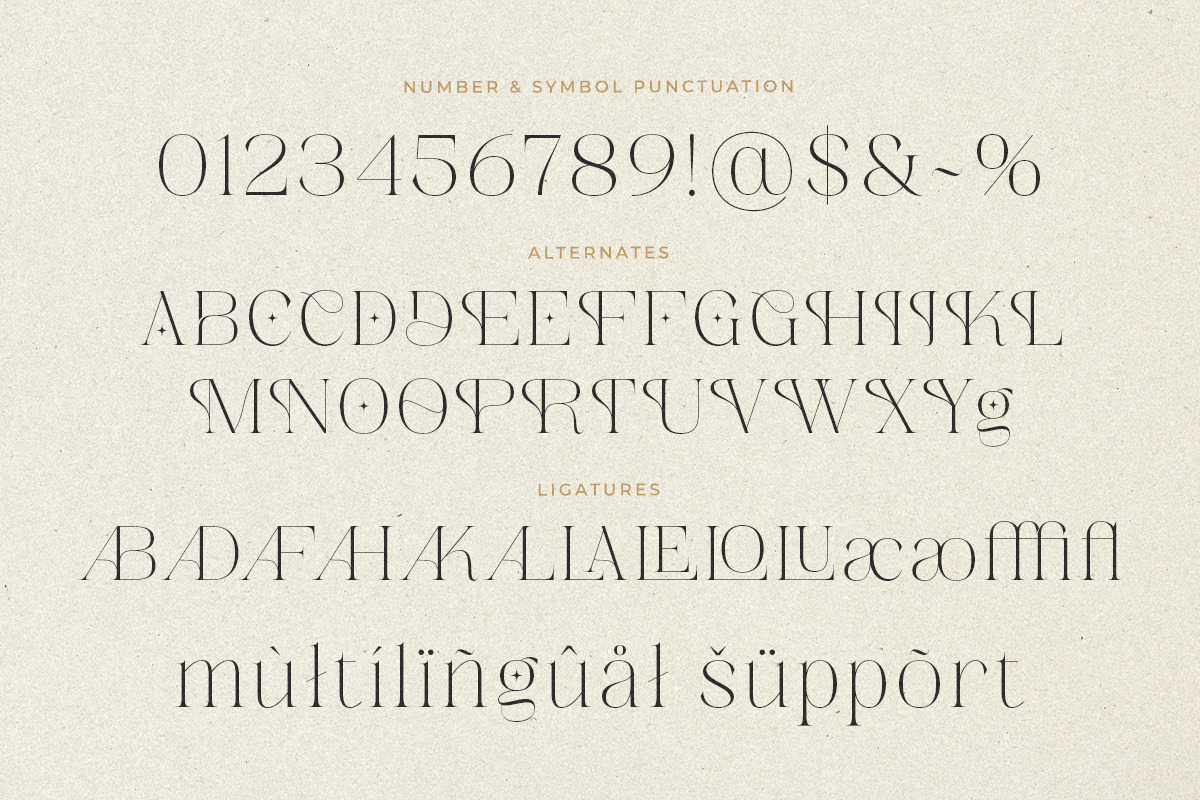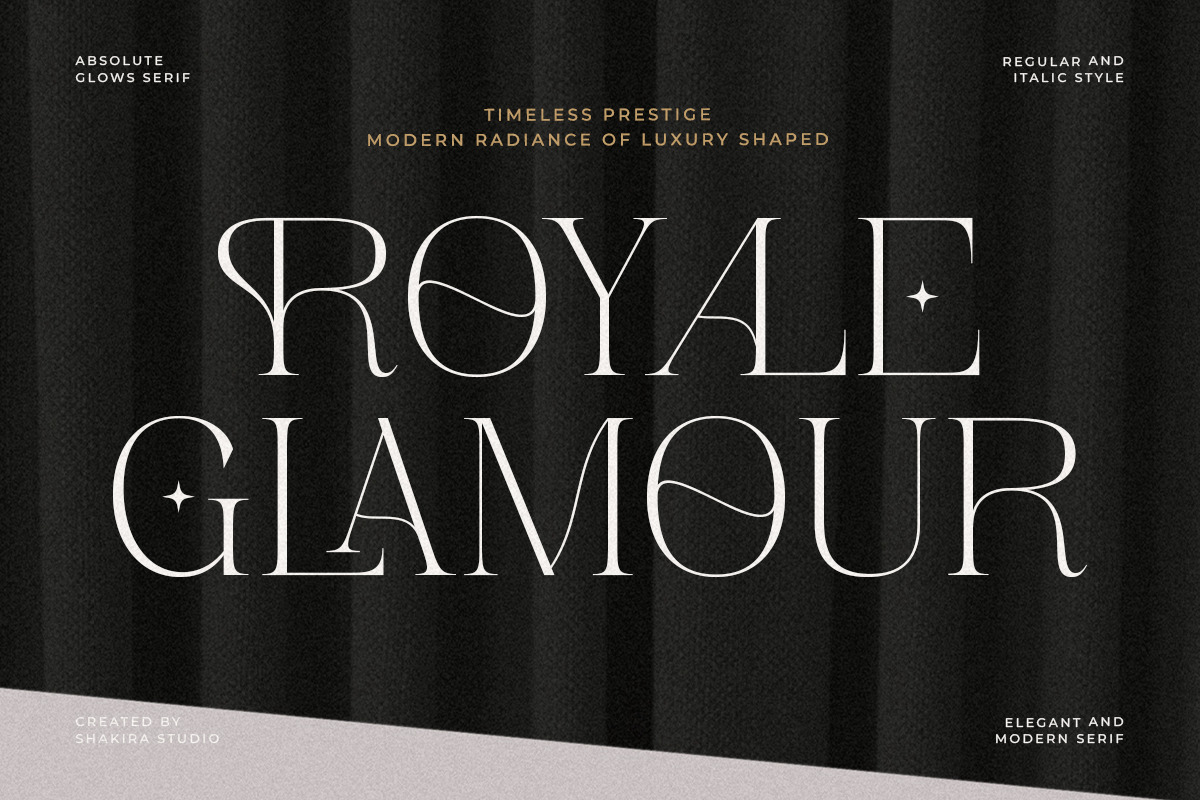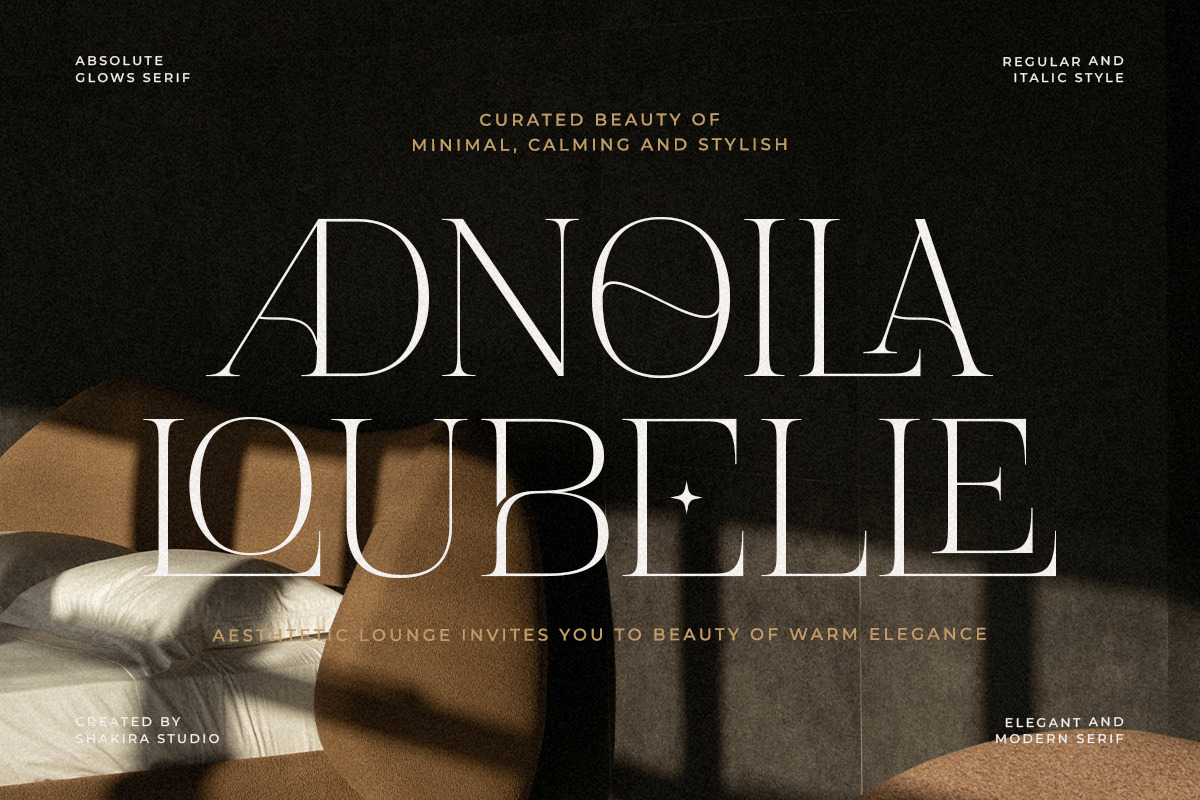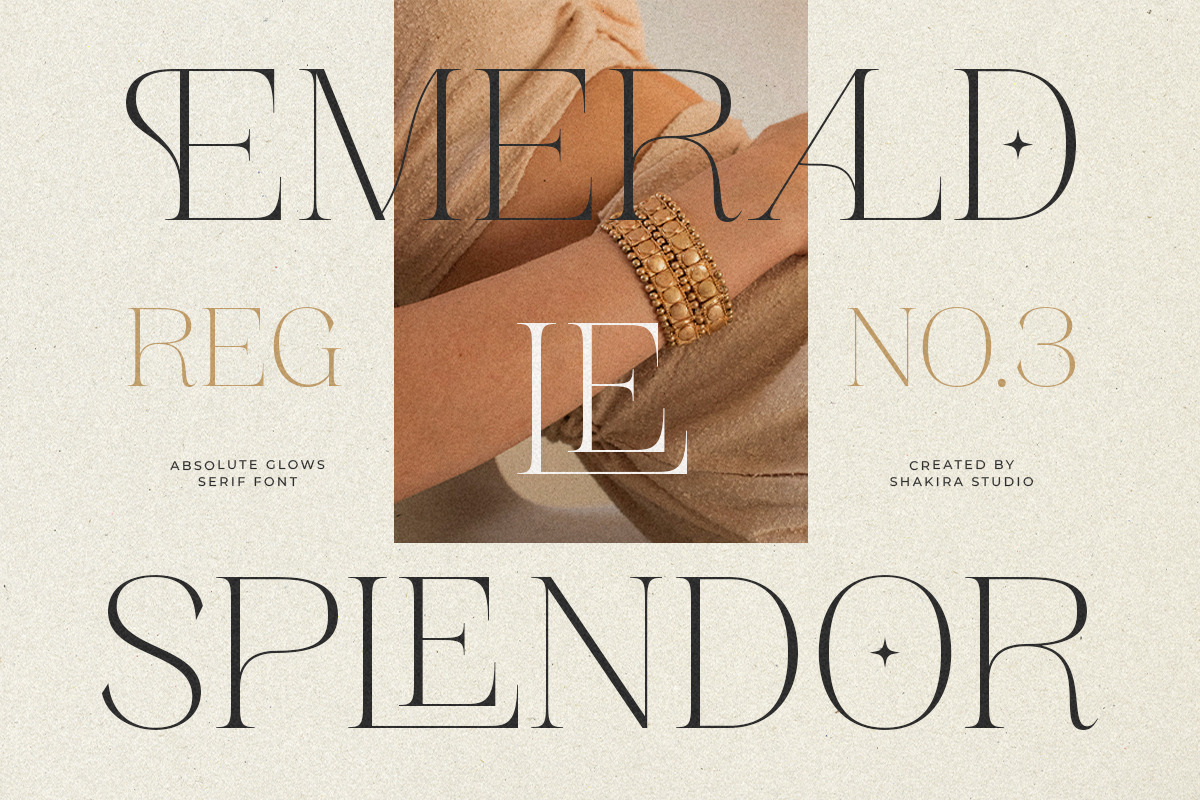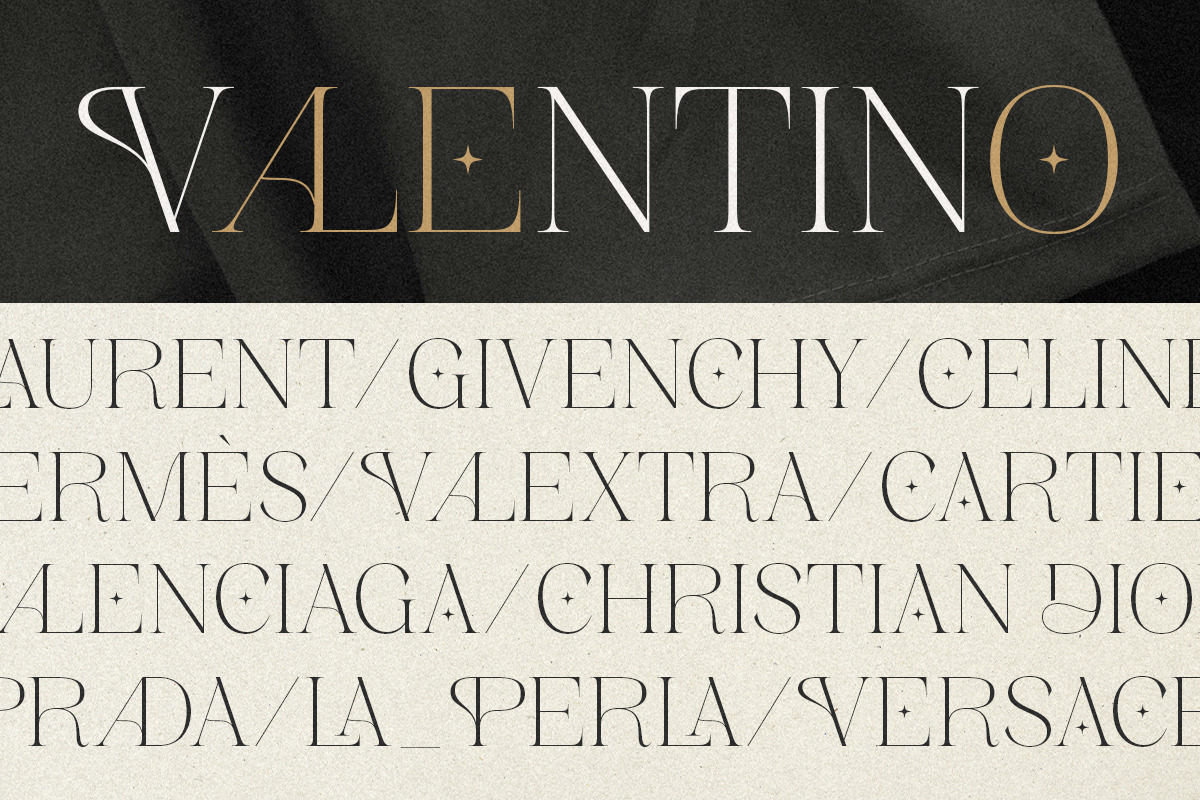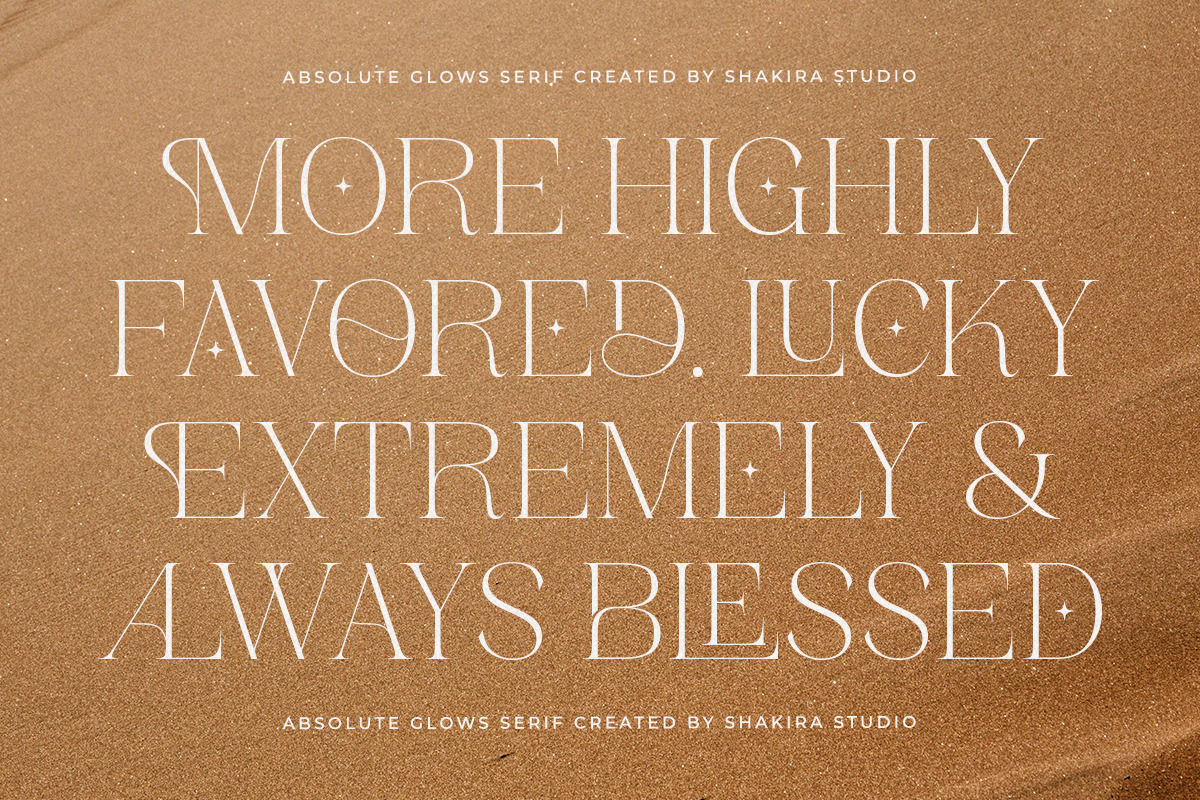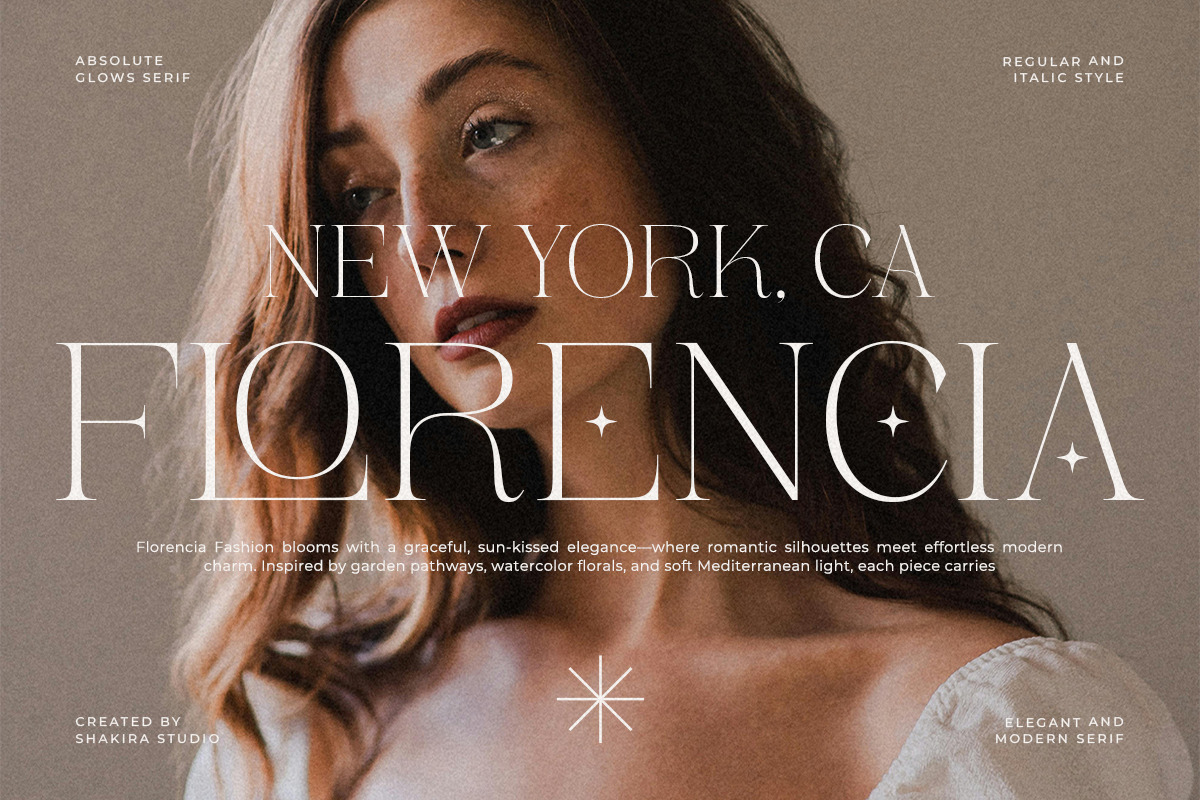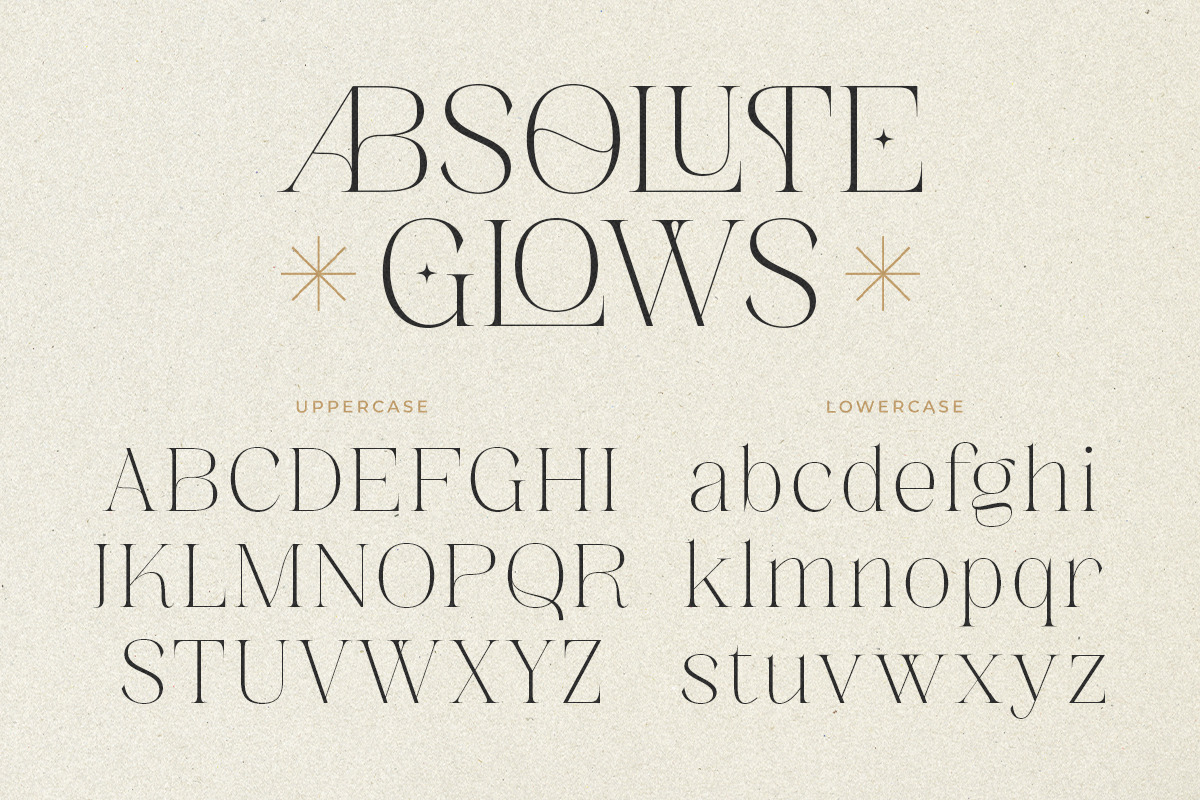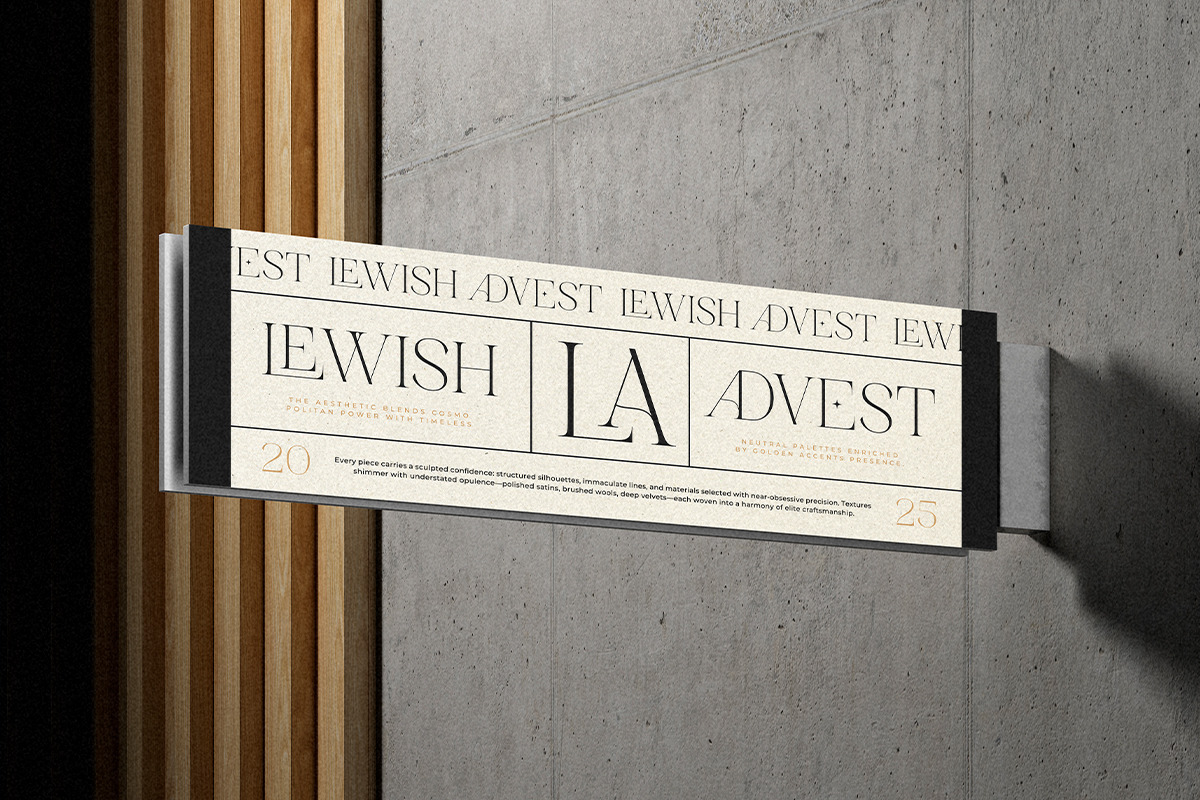
Absolute Glows -Sophisticated Luxury
Absolute Glows is a stylish modern serif typeface created for elegant branding and premium creative work. With balanced contrast, refined curves, and beautiful details, it brings sophistication to every layout.
Perfect for boutique logos, beauty brands, packaging, wedding stationery, fashion campaigns, and magazine titles, Absolute Glows delivers timeless elegance with a polished luxury touch.
Designed for creators who value beauty, clarity, and upscale style.
- Alternates & ligatures
- Regular & Italic
- Luxury serif styling
Luxury logos, boutique branding, invitations, beauty packaging, editorial headlines, fashion campaigns